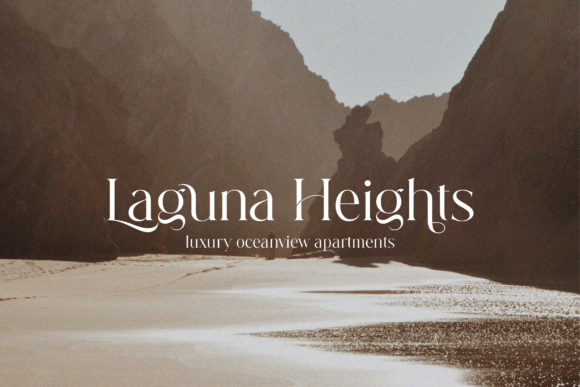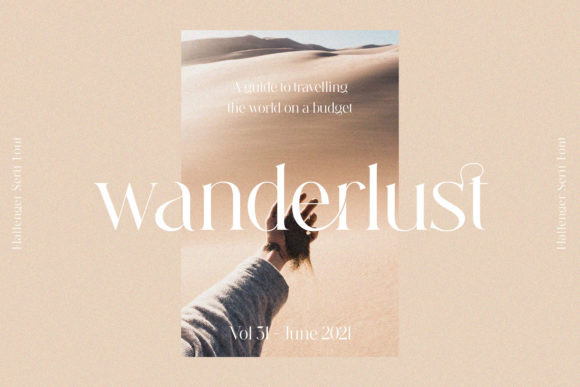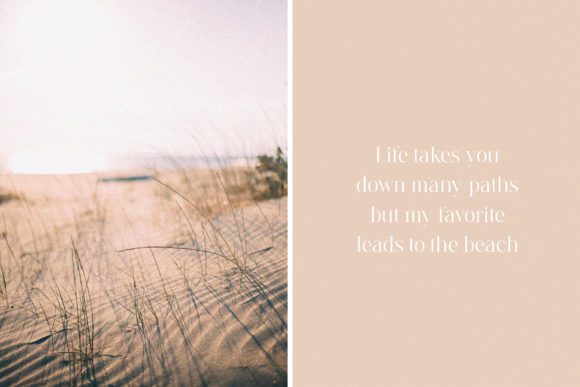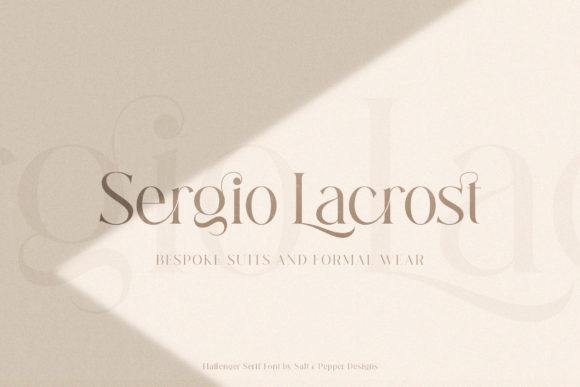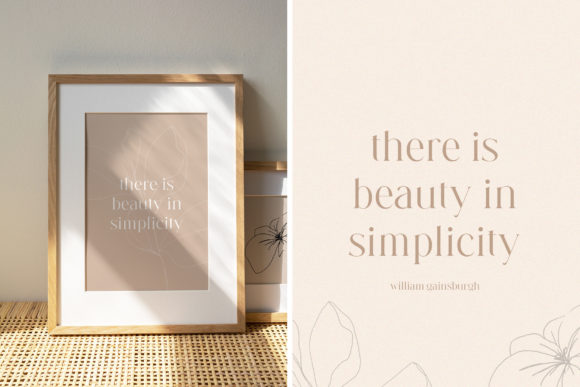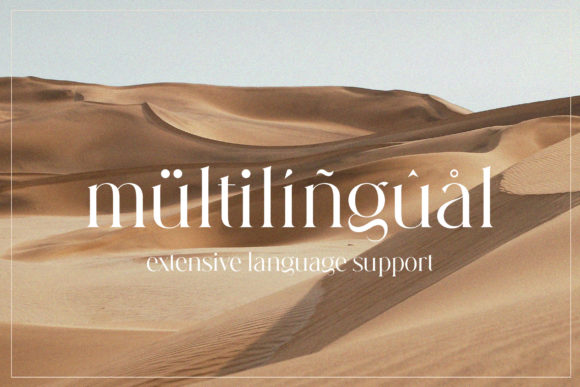
Introduction to Hallenger Font
Hallenger is a thin lettered, elegant and delicate serif font.
This font is neatly crafted and highly detailed Whatever the topic, this font will be a wonderful asset to your font library, as it has the potential to enhance any creation.
Key Features of Hallenger Font
Why Choose Hallenger Font?
Hallenger Font offers exceptional quality and versatility, making it a valuable addition to your design toolkit. Whether you’re creating for personal projects or commercial use, Hallenger Font delivers professional results.